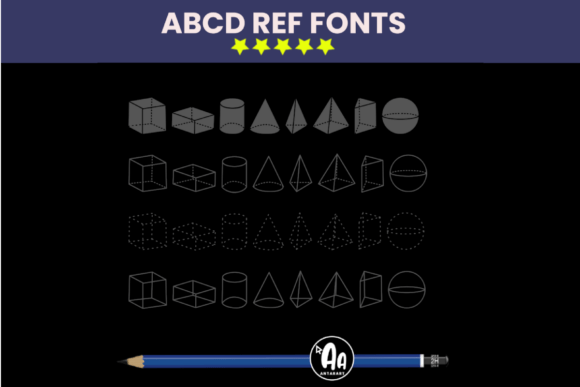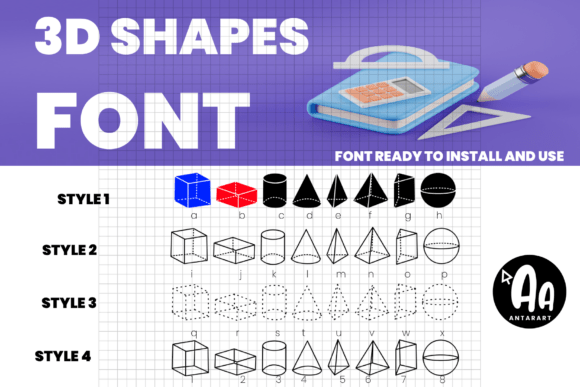
Unlocking Creative Math Lessons with Abcd Ref 3d Shapes Font
As a creative designer and educator, I’ve had my fair share of moments where I wished for a magic solution to make my work easier. One such moment was when I was tasked with creating engaging math worksheets for a client’s educational project. I was struggling to find the right font that could instantly transform into 3D shapes, making the worksheets visually appealing and interactive. That’s when I stumbled upon the Abcd Ref 3d Shapes Font – a game-changer for educators, homeschoolers, and curriculum creators alike!
A Personal Story: The Struggle is Real
I recall spending hours scouring the internet for the perfect font, only to end up with a collection of clipart images that were difficult to scale and customize. My client needed a solution that would allow them to create worksheets with 3D shapes quickly and efficiently. I knew I had to find a better way. That’s when I discovered the Abcd Ref 3d Shapes Font, which has since become an indispensable tool in my design arsenal.
• ✨ Instant 3D Shapes: With just a keystroke, I can insert clean, scalable 3D shape illustrations into worksheets, presentations, or any design project.
• ✅ Versatile Versions: The font comes in four handy versions: solid, outline, dotted tracing, and spaced dotted tracing, making it perfect for shape recognition, tracing practice, and visual math learning.
• 🔍 8 Essential 3D Shapes: The font includes a range of essential 3D shapes, such as cubes, cones, spheres, pyramids, cylinders, rectangular prisms, triangular prisms, and hemispheres.
• ⚠️ Glyph Exploration Required: While the font offers a range of features, navigating the glyphs and OpenType features might take some time to get used to.
• 🤔 Learning Curve for New Users: For those new to dingbat fonts or OpenType features, there might be a slight learning curve to mastering the font’s capabilities.
The Designer’s Inspiration: A Backstory
The Abcd Ref 3d Shapes Font was created with educators and curriculum creators in mind. The designer, a passionate advocate for interactive learning, aimed to craft a tool that would make math and geometry engaging and accessible. By combining the versatility of a dingbat font with the visual appeal of 3D shapes, the Abcd Ref 3d Shapes Font was born.
Q: How do I access the different 3D shape versions?
A: The font comes in four versions: solid, outline, dotted tracing, and spaced dotted tracing. You can access these versions by using the corresponding glyphs or OpenType features.
Q: Is the font suitable for young learners?
A: Absolutely! The Abcd Ref 3d Shapes Font is designed to be engaging and interactive, making it perfect for young learners in pre-K to grade 6 and special education settings.